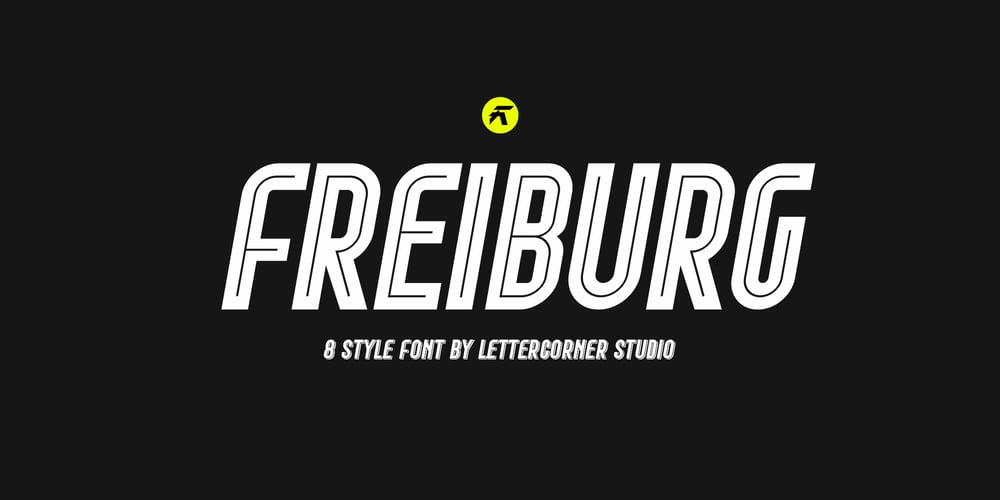
Freiburg Font Family was designed by Muhammad Afif Ersya and published by Trequartista Studio. Freiburg contains 16 styles and family package options. Freiburg is a fearless athletic font family with 8 creative styles for added flexibility and variation. It’s perfect for sports logos, branding, posters, apparel design with it’s bold and confident appearance. The uppercase characters comes with different renders to add authenticity and a more natural worn look.